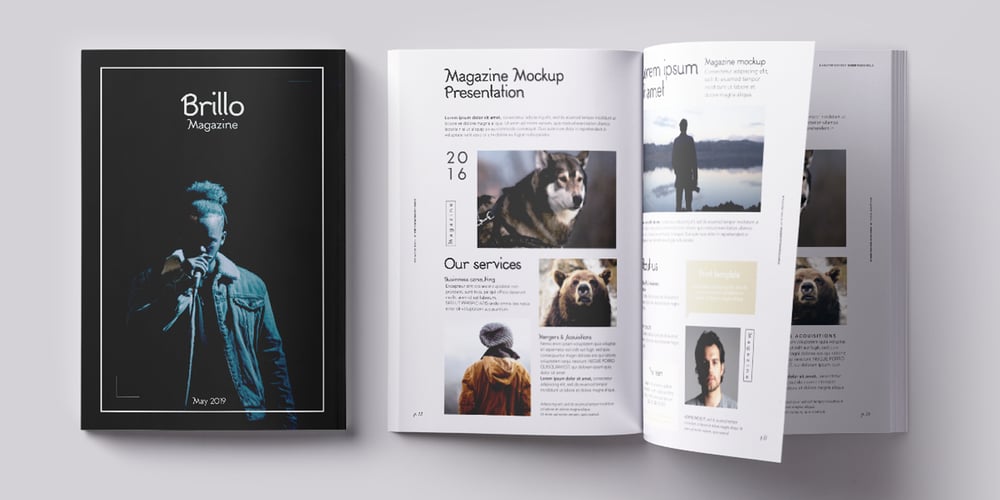
Brillo Font Family was designed by Alessandro Pivetta and published by Alessandro Pivetta Type. Brillo contains 1 styles and family package options. Brillo Typeface stems from the effort of combining the modern look of a grotesque sans serif font with the elegance of the calligraphic copperplate’s swashes. The result is a typeface that is perfectly suitable for modern graphic applications, such as publishing, branding and web, but which has some ornamental features that differentiate it from all the other grotesque families. Brillo doesn’t want to be a neutral typeface. It’s a font with a strong personality, which can give outstanding aesthetic and conceptual relevance to the graphic projects which will be used in. Brillo is a typeface thought for titling rather than for texts. For this reason it works better with character sizes bigger than 16 points.